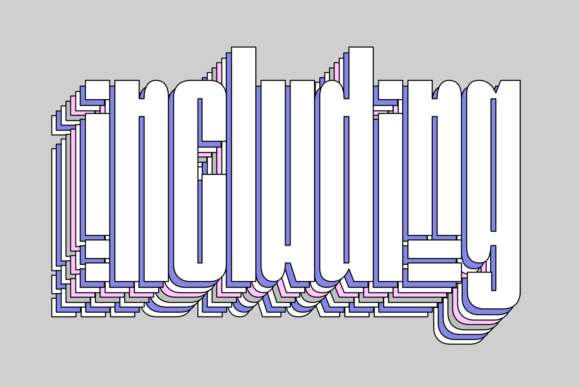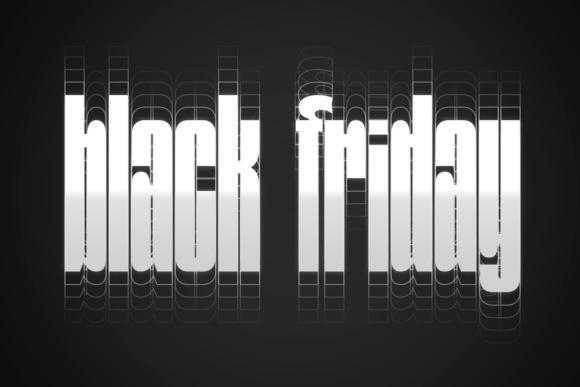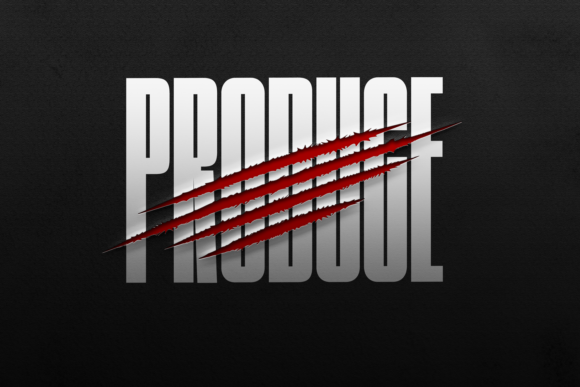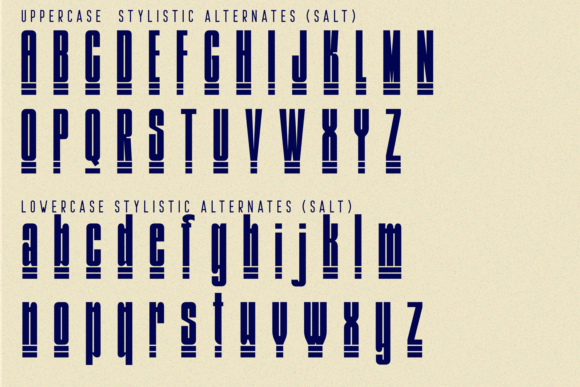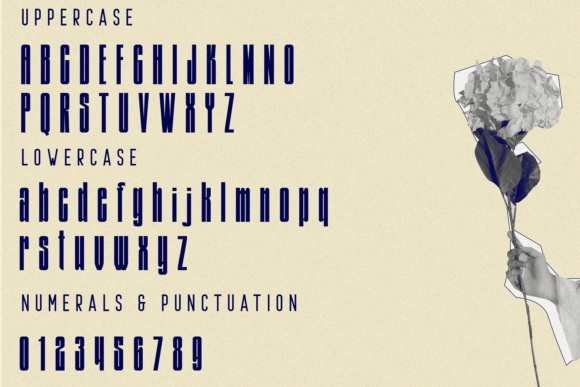
Introduction to Differin Font
As a designer, you know that sometimes the perfect font can make or break a project. I still remember the moment I stumbled upon the Differin Font – it was love at first sight. The tall, geometrically inspired display font had an instant appeal, transporting me to the vibrant world of Miami Deco Art of the 80s. But, what truly won me over was its versatility – it looked just as amazing with the neon color gradients of the 90s.
With its PUA encoding, accessing all glyphs and swashes is a breeze, making it a valuable design resource for any creative project. Whether you’re working on a high-quality design or just need a free download to spice up your design, the Differin Font is an excellent choice. Its transparent background and clean lines make it perfect for designers looking for a modern and elegant font.
Differin Font
- Unique, modern font style with transparent background, ideal for digital designs
- Supports a wide range of languages, making it a versatile design resource
- Can be used for a variety of design projects, including logos, typography, and graphics
Honest Review: Differin Font
I recently had the chance to work with the Differin Font for a creative project, and I must say it was a great experience. The font is a high-quality design resource that can be downloaded for free, making it a fantastic addition to any designer’s toolkit.
- ✨ Unique design: The Differin Font has a distinctive and modern look that sets it apart from other fonts in its class.
- ✨ Transparent background: The font’s transparent background makes it easy to use and customize for any design project.
While the Differin Font is a great resource, there are a few limitations to consider:
- ⚠️ Limited font sizes: The font only comes in a few different sizes, which may limit its use in certain design applications.
- ⚠️ Not suitable for all projects: The font’s unique design may not be suitable for all types of projects, such as formal or traditional designs.
Overall, I was impressed with the Differin Font and its potential for adding a unique touch to creative projects. While it may have some limitations, I would definitely recommend it as a design resource for anyone looking for a high-quality, free font.
Common Use Cases for Differin Font
Differin Font is a versatile design resource that can be used in a wide range of creative projects, including social media graphics, presentations, posters, brochures, and business materials. Its high quality and transparency make it an ideal choice for designers who want to create stunning visuals without the hassle of complicated design processes.